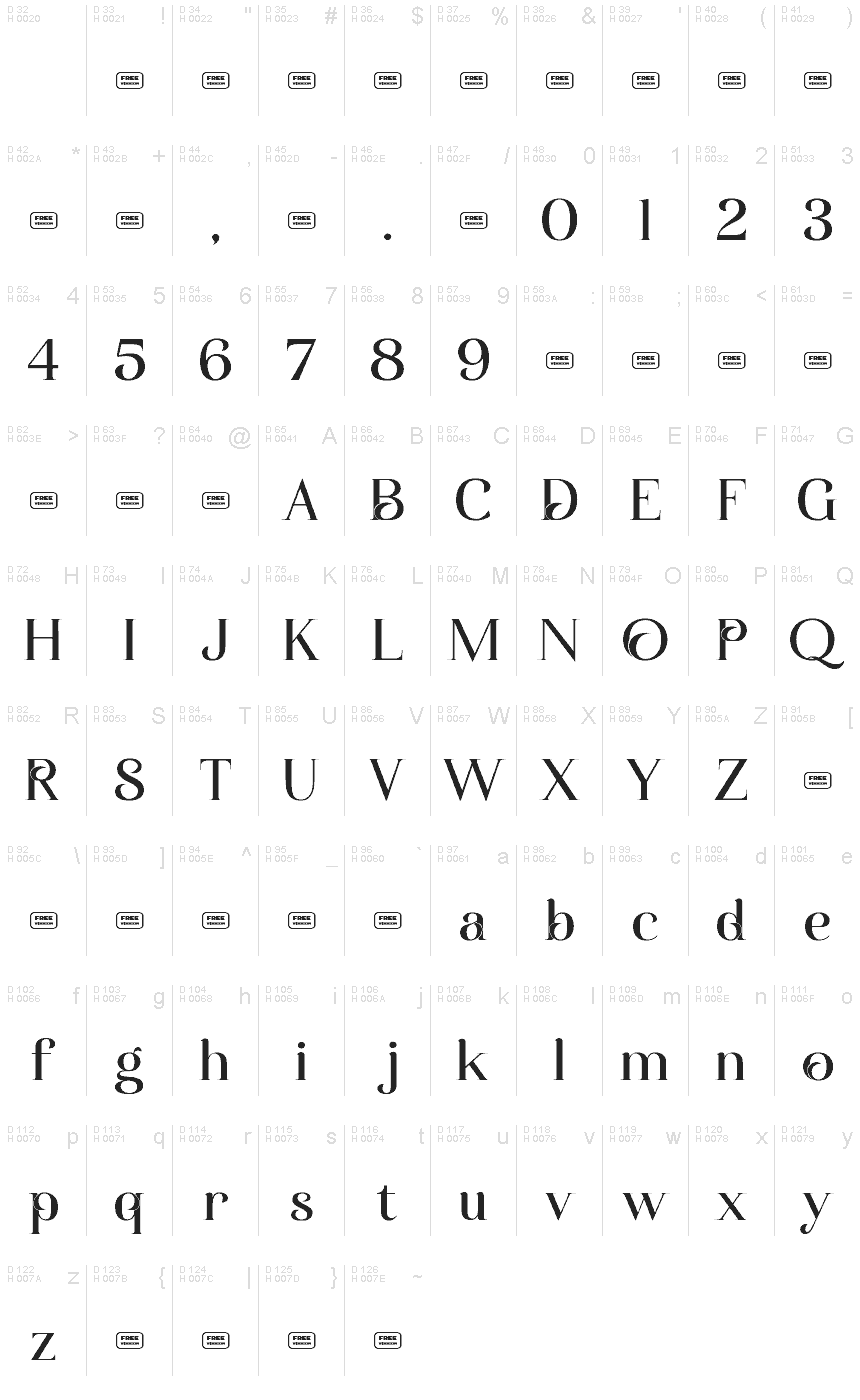
Auralyess Free Trial
Auralyess font has been designed by Typefactoryco as an innovative font with a clever and modern style exhibited in a clean and clear manner. Every letter is manufactured according to high standards which allow them, when put together, to create a pleasing authentic facade for the reader.